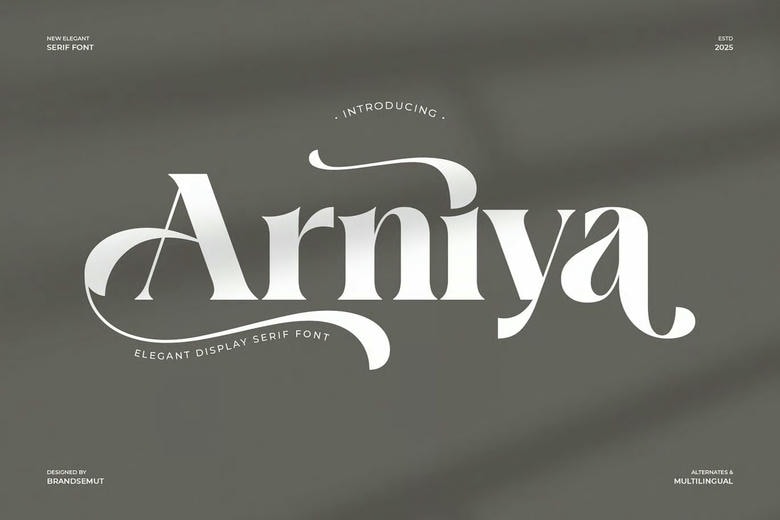
Arniya Font
Arniya is an elegant display serif font that reveals a smooth classic style with a distinguished contemporary touch. With its elegant curves, taut design and artistic alternate letters, Arniya will be a right choice in all the projects where a luxurious and professional typographic style is needed.
The typeface combines a traditional serif sophistication with a modern stroke, and is therefore suitable in a wide variety of applications such as branding, editorial designs, packaging, social media, and creative design work. Its elegant and powerful appearance makes any of its designs conspicuous and distinctive.
Arniya Elegant Display Serif Font